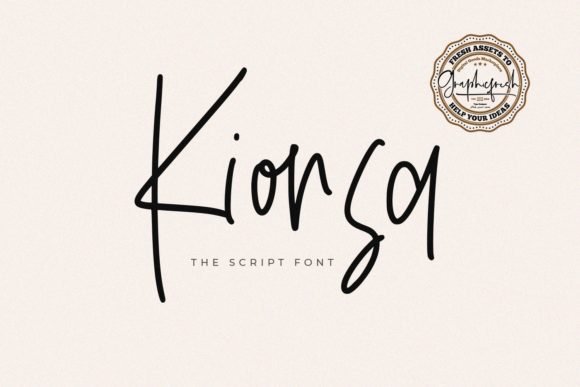
The Perfect Blend of Elegance and Whimsy: Introducing Kionsa Font
Have you ever found yourself lost in a sea of inspiration, surrounded by colorful papers, half-finished projects, and endless ideas? You finally settle on a concept that sparks your creativity, and suddenly, everything falls into place. This is the magic of creating something truly special, and it’s exactly what the Kionsa Font is designed to capture.
This charming handwritten font is perfect for designers looking to add a touch of elegance to their projects. Whether you’re crafting a beautiful Instagram post or creating a custom invitation for a special occasion, the Kionsa Font will bring your ideas to life in a way that’s both personal and professional.
What makes the Kionsa Font truly valuable is its versatility. It’s not just a font, but a tool that allows designers to express their unique style and creativity. With its elegant and whimsical feel, it’s no wonder why the Kionsa Font has become a favorite among designers looking to elevate their work.
Kionsa Font Key Features
- Unique Characteristics: Kionsa Font features a unique, hand-drawn aesthetic with subtle imperfections that give it a personal touch.
- Character Set: The font includes a comprehensive character set, including Latin, Cyrillic, and Greek alphabets, as well as punctuation and symbols.
- Style Options: Kionsa Font is available in several styles, including Regular, Bold, Italic, and Bold Italic, providing users with a range of options for different design applications.
- Scalability: The font is designed to be highly scalable, making it suitable for use in a variety of contexts, from small text to large headlines.
Kionsa Font Review
I’ve had the chance to work with the Kionsa font, and I must say it’s an interesting addition to any design project. ✨ One thing that stands out is its versatility – it can be used for a wide range of applications, from headings to body text, and even for creative projects that require a bit of flair.
The font’s unique combination of modern and traditional elements makes it a great choice for designers who want to add some personality to their work. ✨ The letterforms are well-designed, and the font’s overall structure is clean and easy to read.
- ⚠️ Limited character set – Kionsa is a single font family, which might not be suitable for projects that require multiple weights or styles.
- ⚠️ Not ideal for small text sizes – the font’s letterforms can become difficult to read when scaled down to very small sizes.
- ⚠️ Not as extensive as some other font families – Kionsa is a relatively small font family, which might limit its use in complex projects.
Overall, I think Kionsa is a solid choice for designers who want to add some flair to their work. While it has some limitations, its versatility and unique design make it a great option for the right project. With a bit of caution and planning, Kionsa can be a valuable addition to any design toolkit.
The Kionsa font is perfect for:
- Formal event invitations and announcements
- Luxury branding and packaging
- Wedding and event planning websites